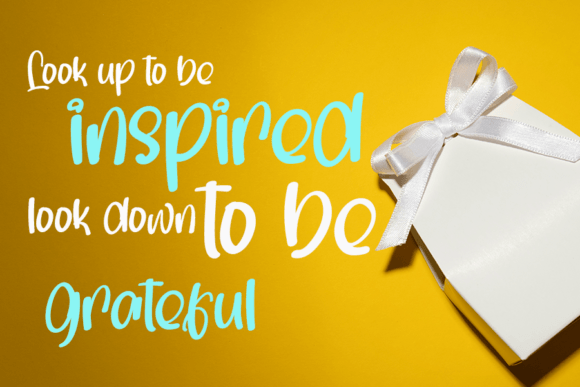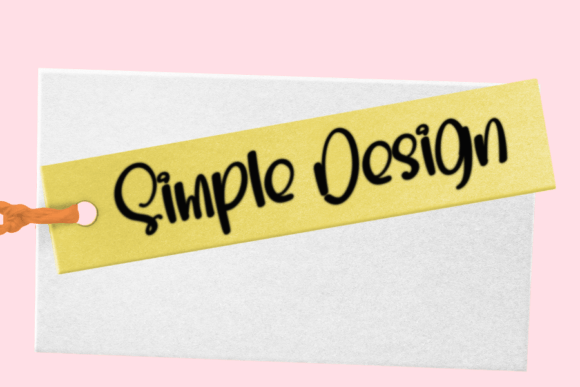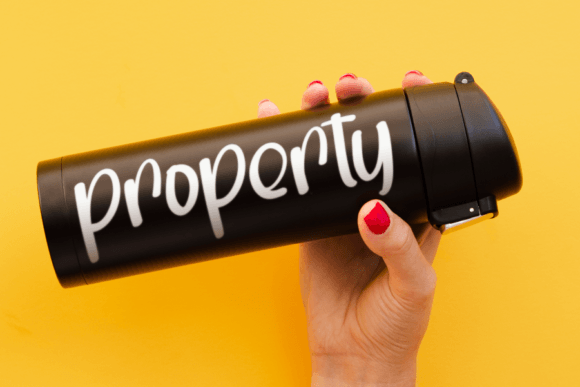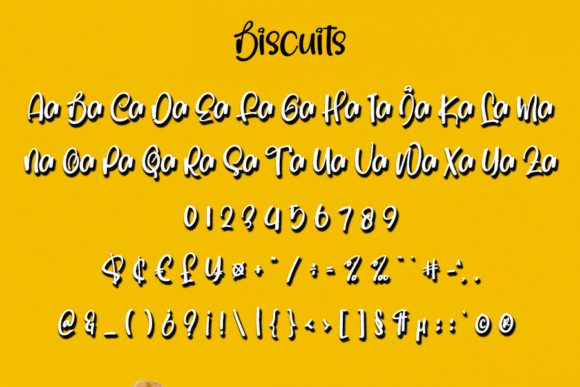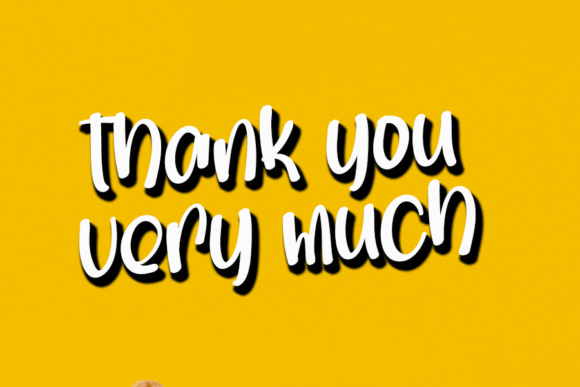
Biscuits Font: Elevate Your Design with Elegant Handwritten Style
In the world of typography, a font can make or break the visual appeal of a design project. For designers and crafters seeking to add a touch of elegance and whimsy to their work, Biscuits Font is a stunning handwritten font that stands out from the crowd. With its beautiful, curvy lines and sweet, approachable feel, Biscuits is the perfect choice for a wide range of design applications.
What is Biscuits Font?
Biscuits Font is a gorgeous handwritten font designed to bring a touch of sophistication and charm to any design project. Its elegant, cursive lines are carefully crafted to create a sense of movement and fluidity, making it ideal for designs that require a personal and approachable feel. Whether you’re working on product packaging, branding projects, magazine covers, social media posts, or wedding materials, Biscuits Font is sure to make your work stand out.
Key Features of Biscuits Font
• Elegant Handwritten Style: Biscuits Font boasts a beautiful, handwritten style that adds a touch of warmth and personality to any design.
• Curvy Lines: The font’s curvy lines create a sense of movement and fluidity, making it perfect for designs that require a sense of dynamism.
• Versatile: Biscuits Font is suitable for a wide range of design applications, from product packaging and branding projects to magazine covers, social media posts, and wedding materials.
• Easy to Read: Despite its elegant, cursive style, Biscuits Font is easy to read, making it perfect for designs that require a clear and concise message.
Design Applications for Biscuits Font
Biscuits Font is a versatile font that can be used in a variety of design applications. Here are some ideas to get you started:
• Product Packaging: Add a touch of elegance and sophistication to your product packaging with Biscuits Font. It’s perfect for food, beauty, and lifestyle products.
• Branding Projects: Create a strong brand identity with Biscuits Font. Use it for logos, business cards, and letterheads to add a personal touch.
• Magazine Covers: Make your magazine cover stand out with Biscuits Font. Its elegant style is sure to grab attention.
• Social Media Posts: Add a touch of whimsy and personality to your social media posts with Biscuits Font. It’s perfect for creating engaging and shareable content.
• Wedding Materials: Make your wedding materials, such as invitations, programs, and place cards, extra special with Biscuits Font.
Tips for Using Biscuits Font
Here are some tips for using Biscuits Font effectively in your design projects:
• Pair it with a Sans-Serif Font: Pair Biscuits Font with a sans-serif font to create a beautiful contrast and add visual interest to your design.
• Use it for Headings: Use Biscuits Font for headings and titles to add a touch of elegance and sophistication.
• Experiment with Colors: Experiment with different colors to find the perfect match for your design. Biscuits Font looks great in pastel colors, bold brights, and metallics.
Biscuits Font is a stunning handwritten font that can elevate your design projects with its elegant and curvy lines. Its versatility, readability, and sweet, approachable feel make it perfect for a wide range of design applications. Whether you’re a designer or crafter, Biscuits Font is sure to become a favorite in your font collection.